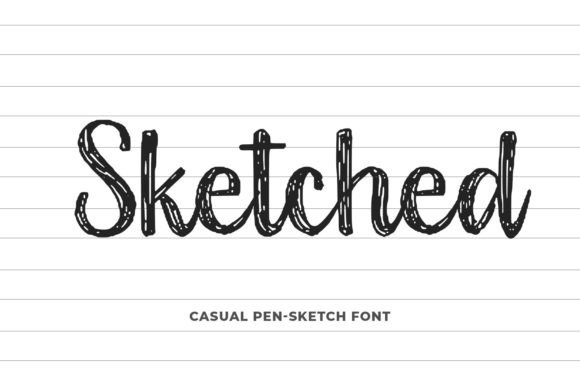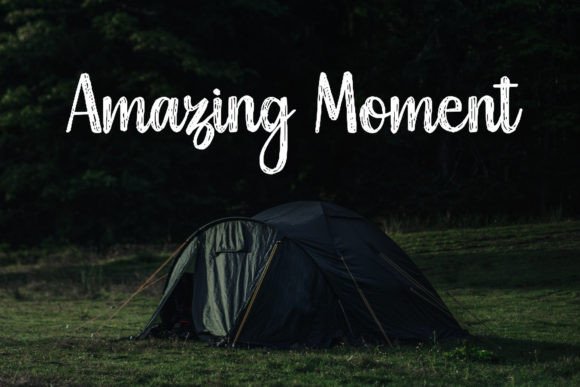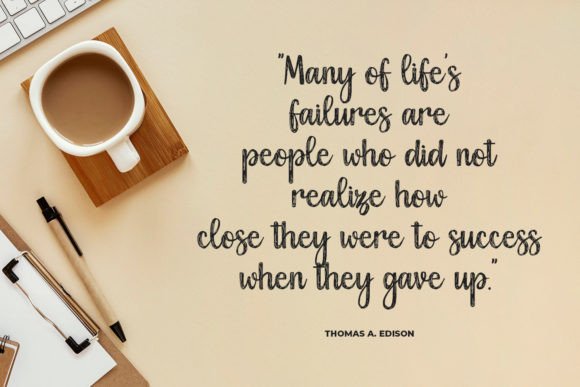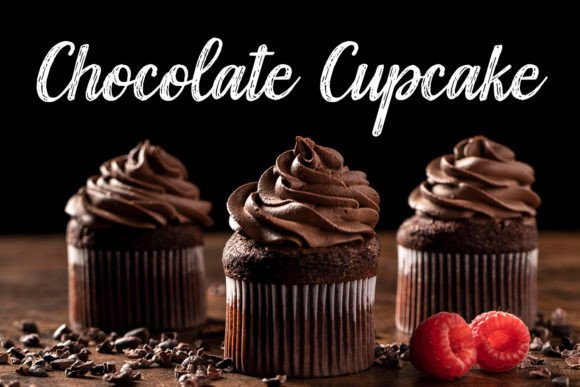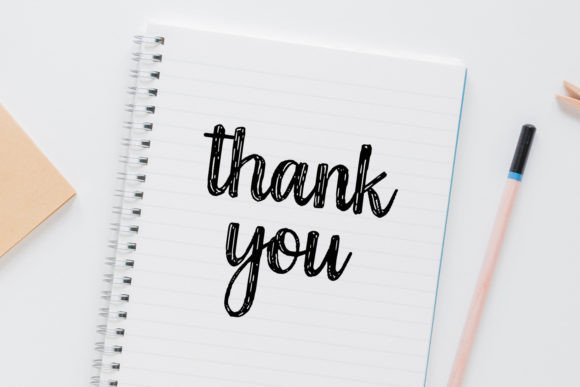
Sketched Font
“Sketched” is a delightful and whimsical pen-sketch script font that adds a touch of handcrafted charm to your creative projects. With its captivating aesthetic, “Sketched” is a versatile choice for a wide range of design applications, from t-shirt designs and quotes to mugs, tote bags, cards, banners, and social media content.
This font’s unique appeal lies in its pen-sketch style, which imparts a sense of playful simplicity to your designs. Each letter appears as though it has been artfully drawn by hand, giving your projects an endearing and approachable quality.
Imagine using “Sketched” for a motivational quote on a t-shirt, where the handwritten script adds a personal and relatable feel to the message. Alternatively, picture a series of greeting cards featuring this font, creating a warm and heartfelt connection with the recipients.
One of “Sketched’s” standout features is its adaptability. It effortlessly complements a variety of design themes and contexts, making it an excellent choice for craft projects, branding, and beyond. Whether you’re crafting a social media post, designing a tote bag, or adding a personalized touch to your merchandise, “Sketched” lends a touch of whimsy and individuality to your work.
Furthermore, “Sketched” maintains excellent readability, ensuring that your text remains clear and accessible, even in intricate or decorative designs.
In summary, “Sketched” is more than just a font; it’s a creative tool that infuses your projects with character and charm. Its casual pen-sketch style makes it perfect for conveying a sense of handmade authenticity in a wide range of design applications. With “Sketched” in your font arsenal, you have a delightful companion to enhance your craft projects and creative endeavors, adding that special touch of cuteness and simplicity that sets your work apart.